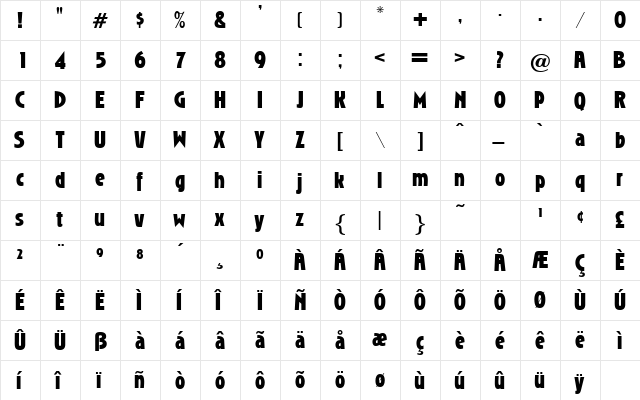
Chapell Regular
Design Context for Chapell Typeface
Chapell offers clean, dependable letterforms without strong stylistic allegiance, making it a practical choice for designers who need flexibility.